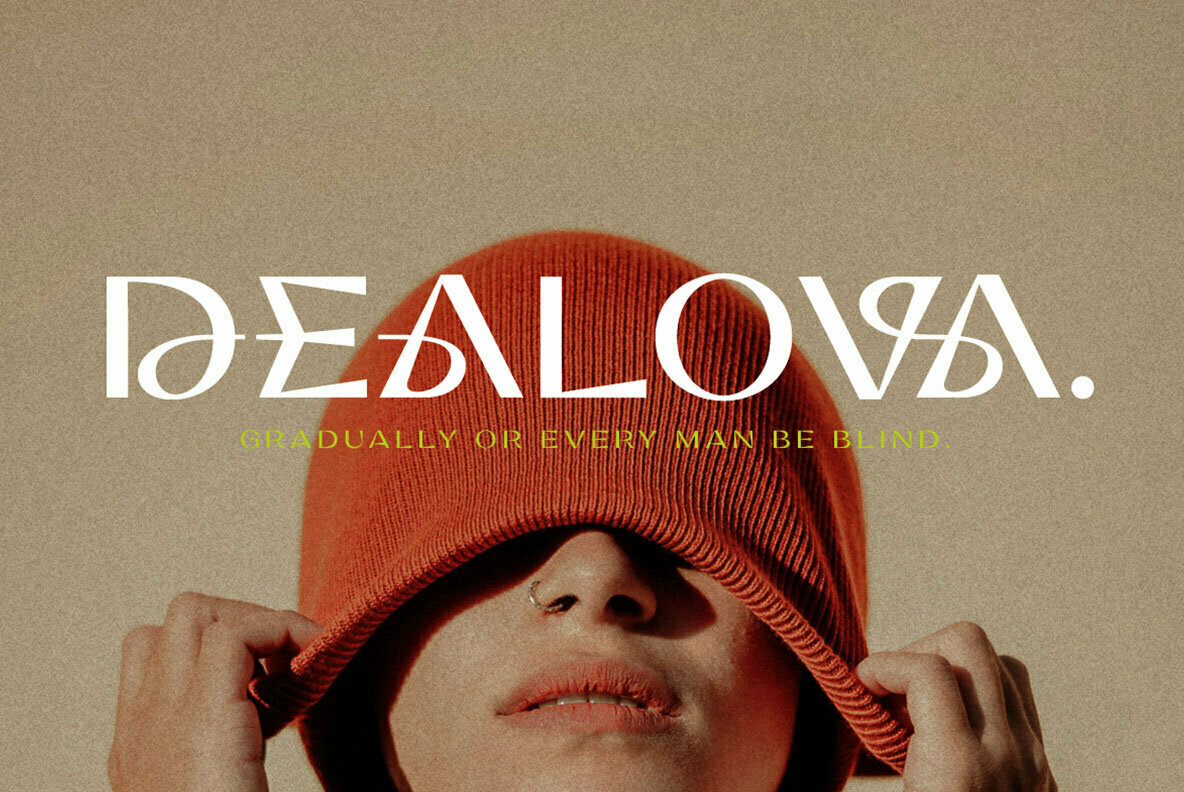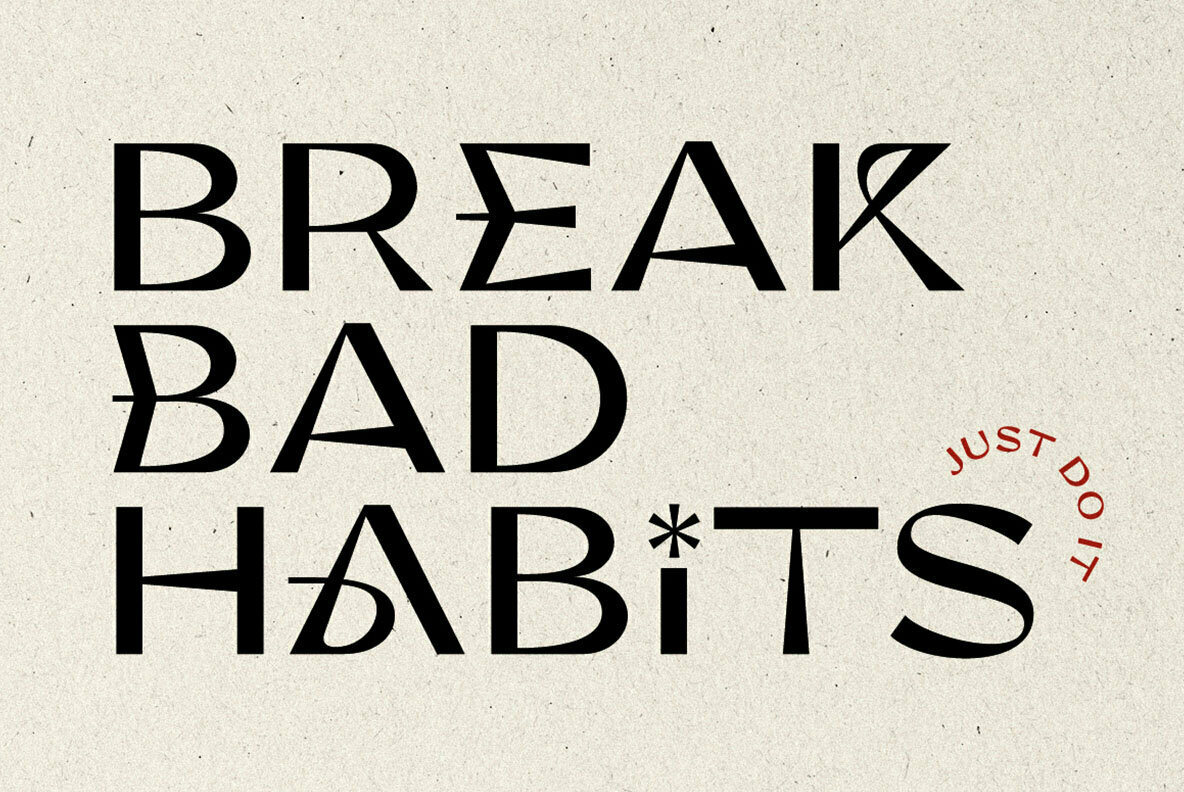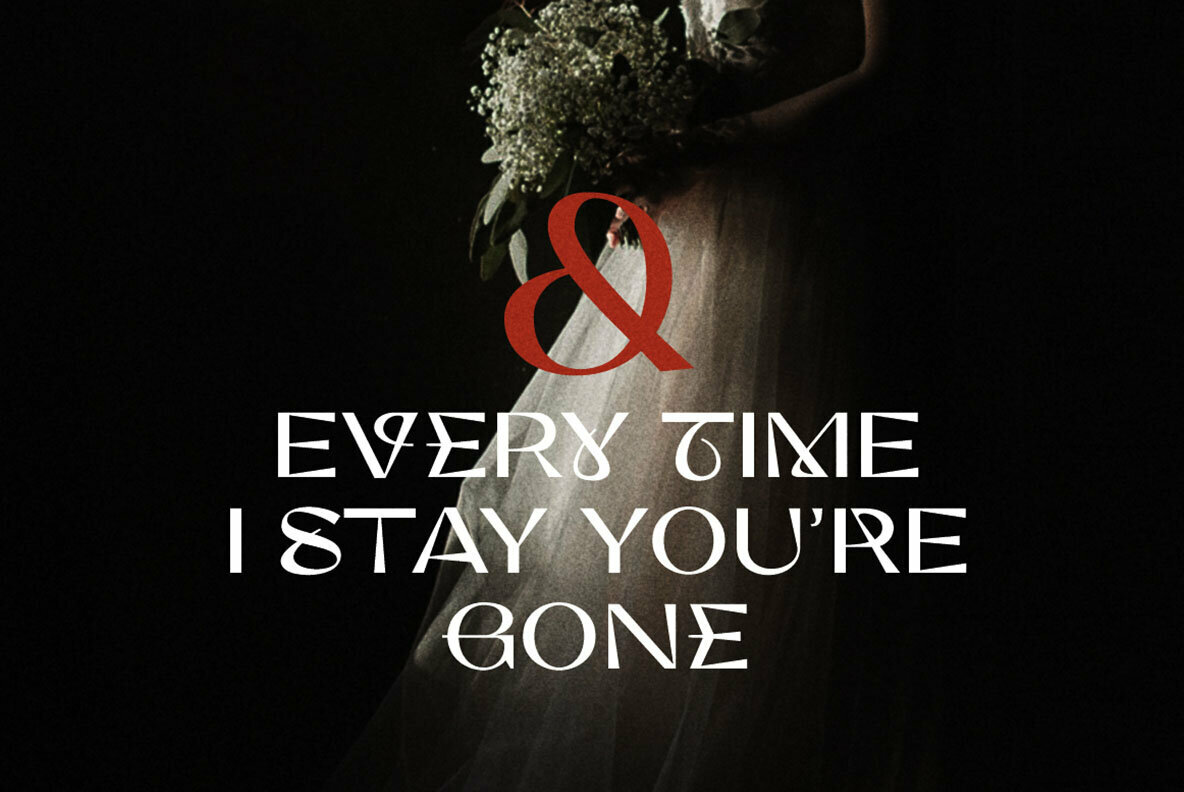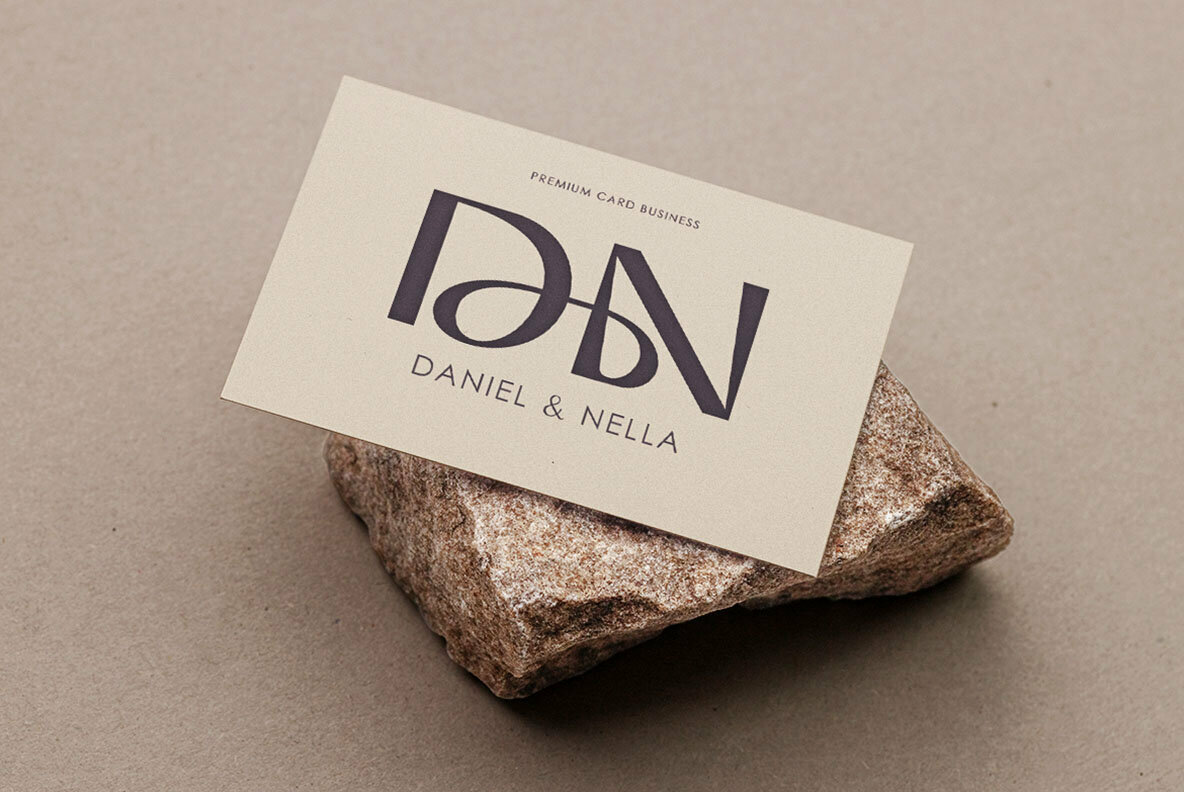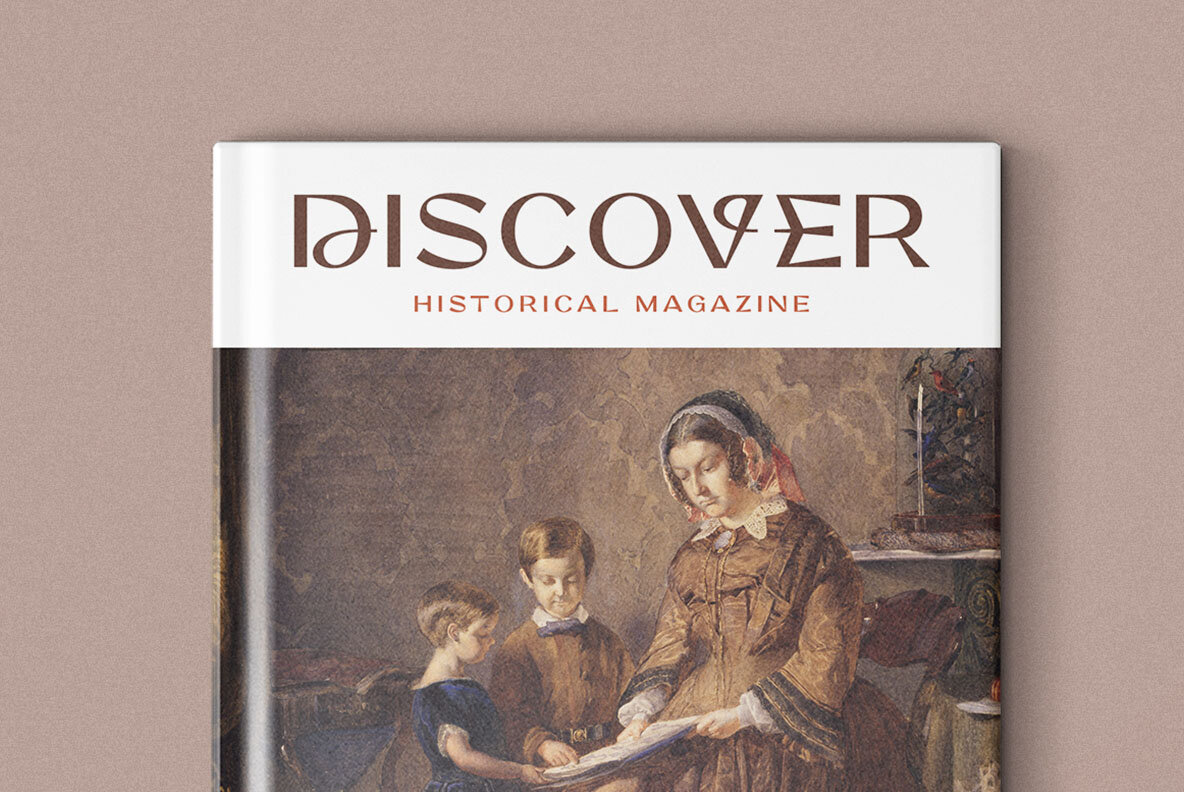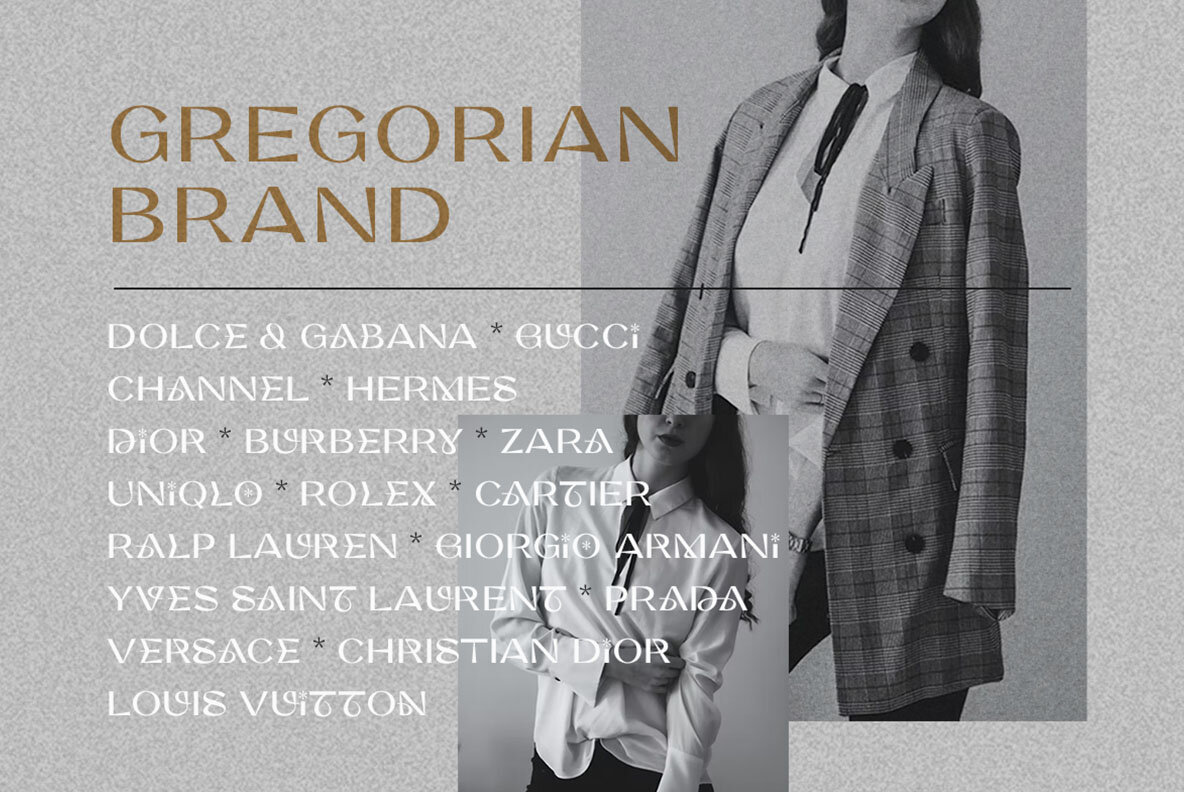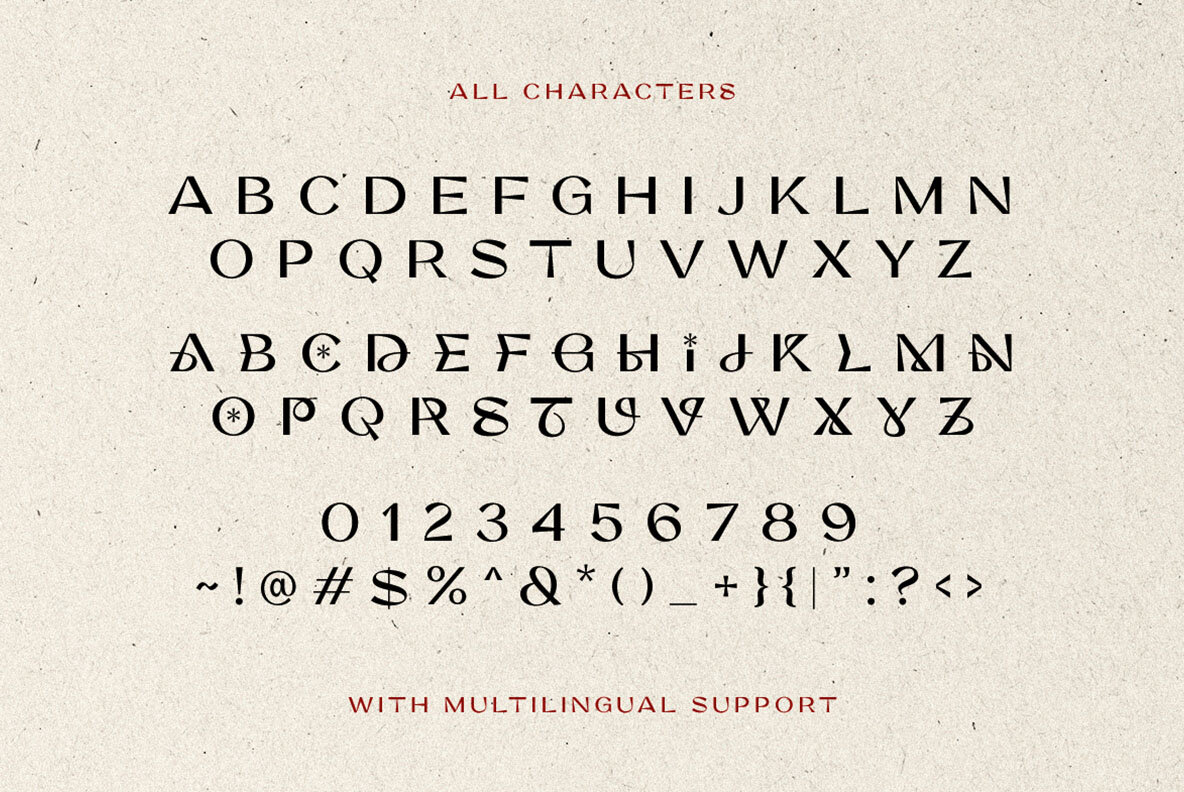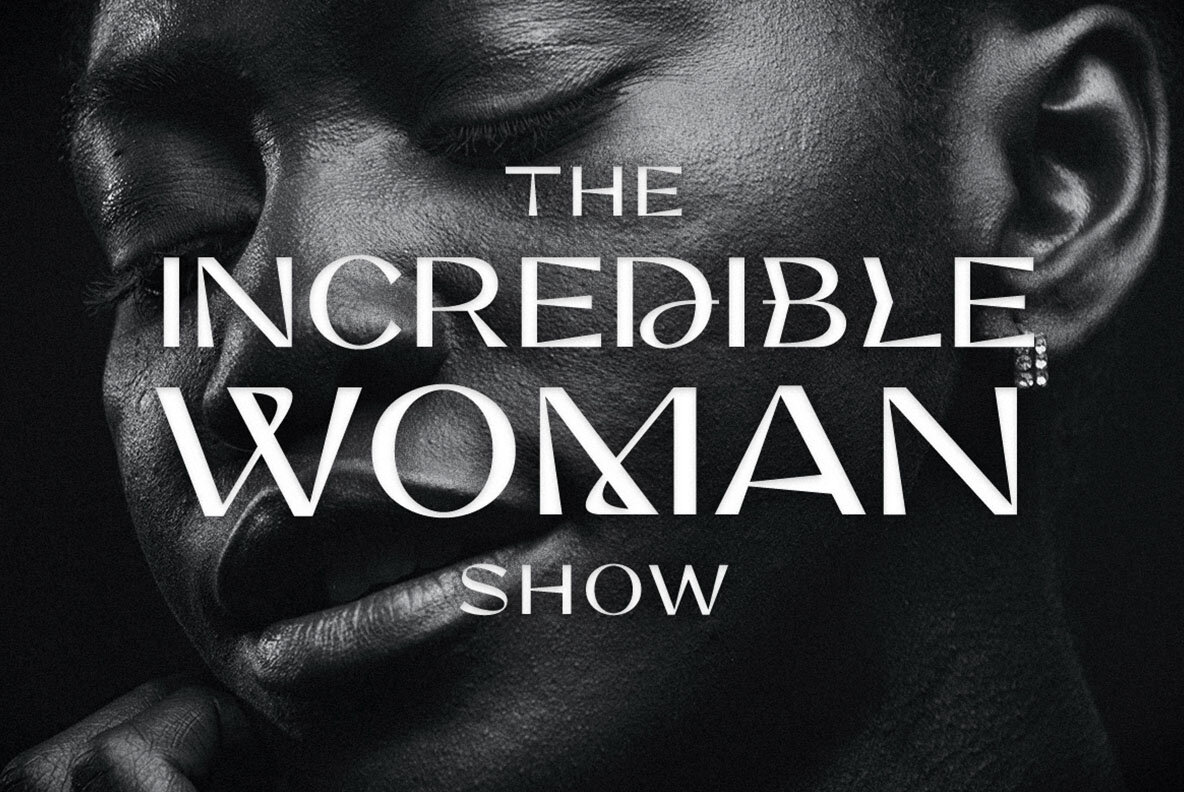
Sinder Font
Sinder Regular
Sinder stands out as a modern sans serif font, offering a unique stylistic touch in its lowercase forms. The versatile design allows seamless integration of uppercase and lowercase letters, creating striking and approachable typography for a variety of projects.Sinder: A Contemporary Sans Serif Font